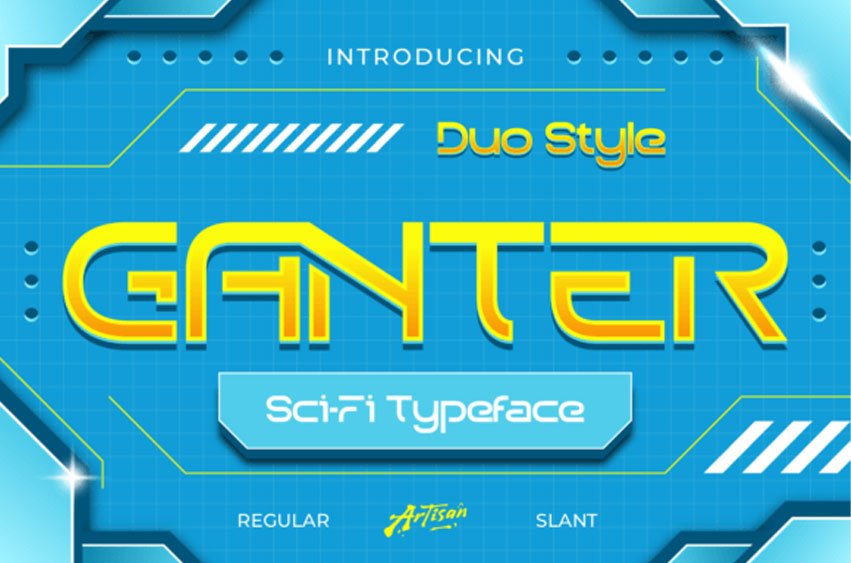
Ganter Font
Ganter Font is a sci-fi typeface that looks like it just escaped from a spaceship dashboard. With its bold geometric shapes and sharp futuristic vibe, this font instantly brings your designs into the future (without needing a time machine).
Whether you’re designing for gaming covers, tech brands, posters, or just want your text to look like it came from another galaxy – Ganter has you covered. It comes in Regular and Slant, so you can go steady or add some extra speed to your typography.
Perfect for logos, headlines, or even that one friend who insists on making their Wi-Fi name sound like a secret alien code.
So, if your design is stuck in 2025, let Ganter teleport it straight into the future.